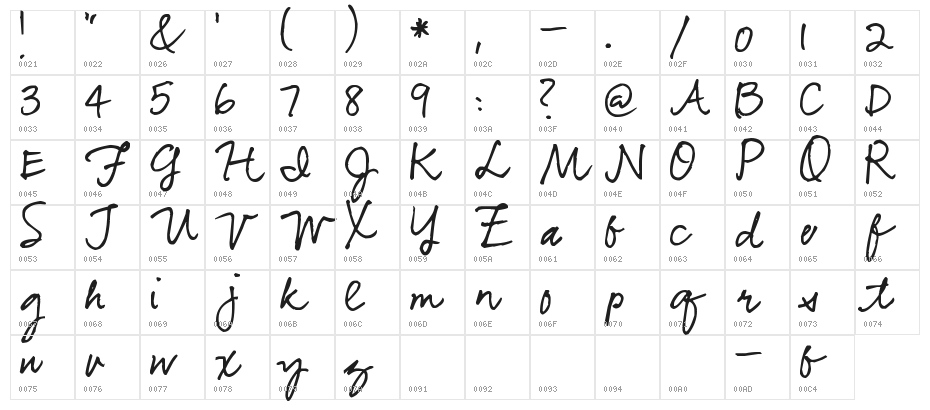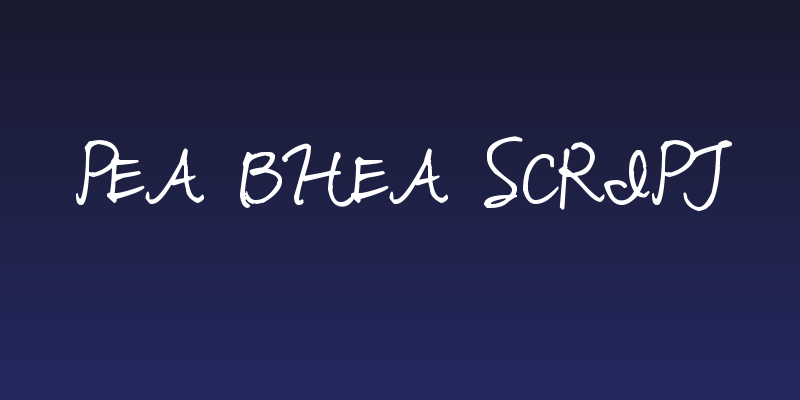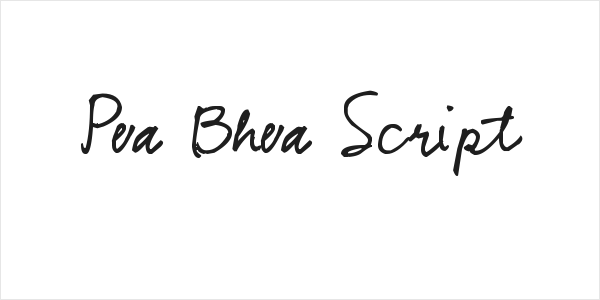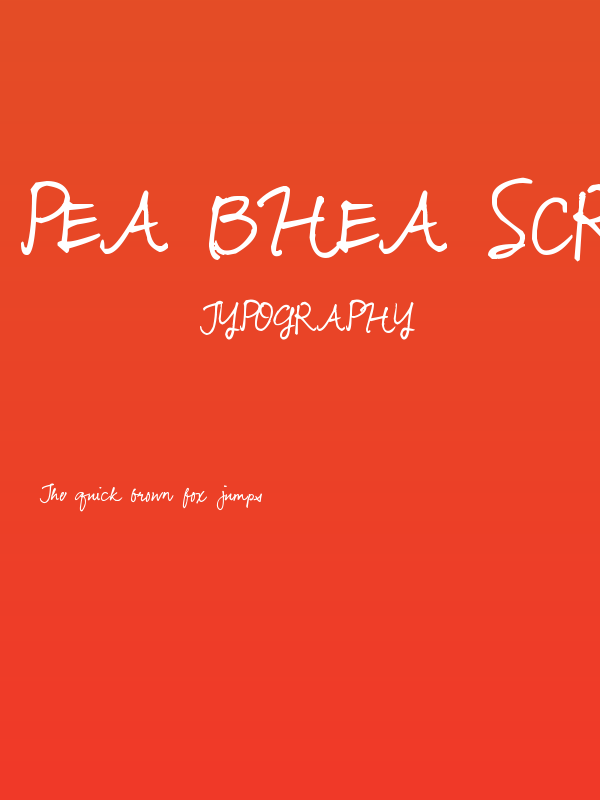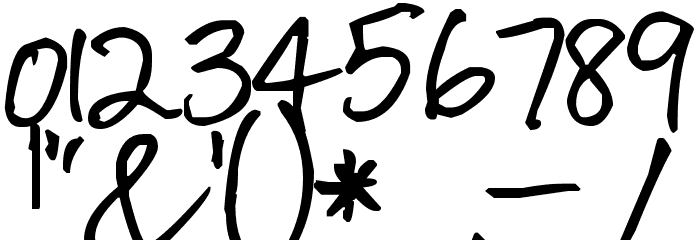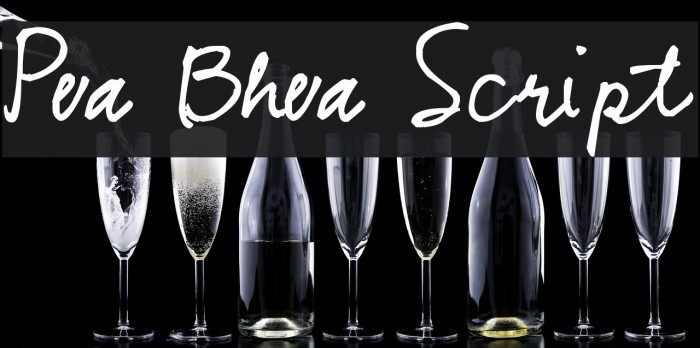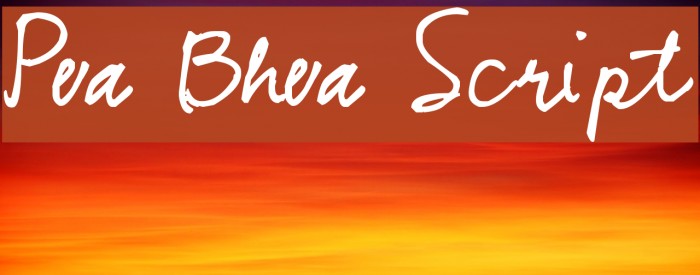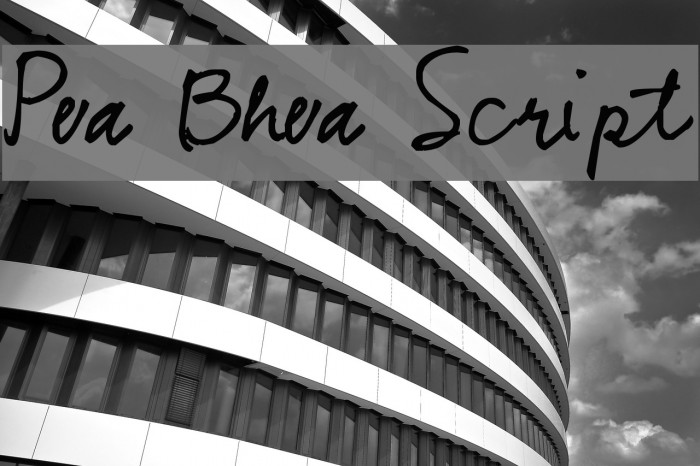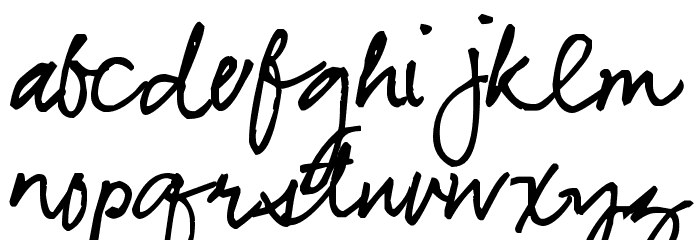
Pea Bhea Script Font
Pea Bhea Script Description
This script font exudes a playful and casual vibe, characterized by its flowing, handwritten style. The letters are connected with smooth curves, giving it a natural and organic appearance. The uppercase letters are slightly more formal, while the lowercase letters maintain a consistent, relaxed flow. Numbers and special characters are integrated seamlessly, maintaining the font's overall aesthetic. The strokes vary in thickness, adding a dynamic and lively feel to the text. This font is ideal for projects that require a personal touch, such as invitations, greeting cards, or informal branding.
| Proposed Projects | Ideal for invitations, greeting cards, personal branding, and informal communications. |